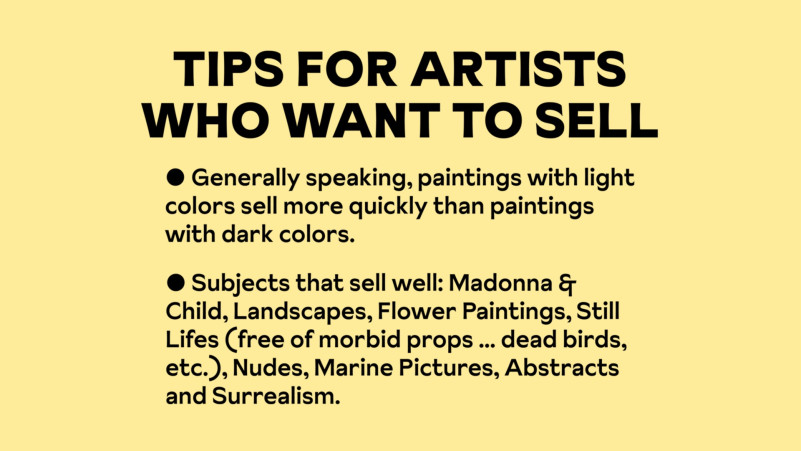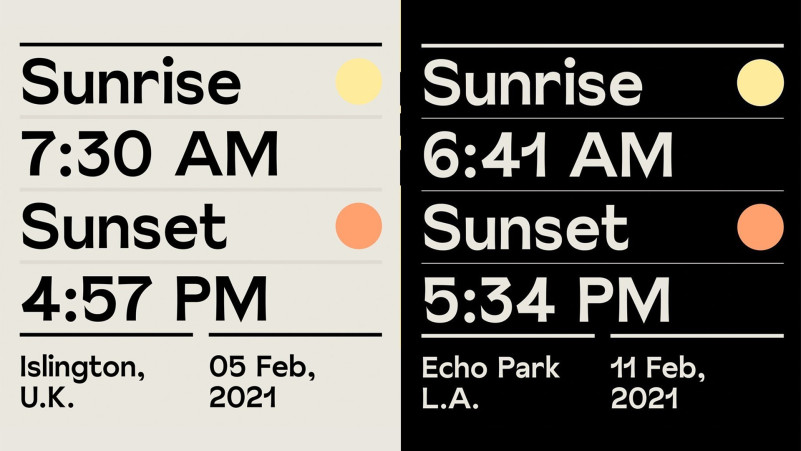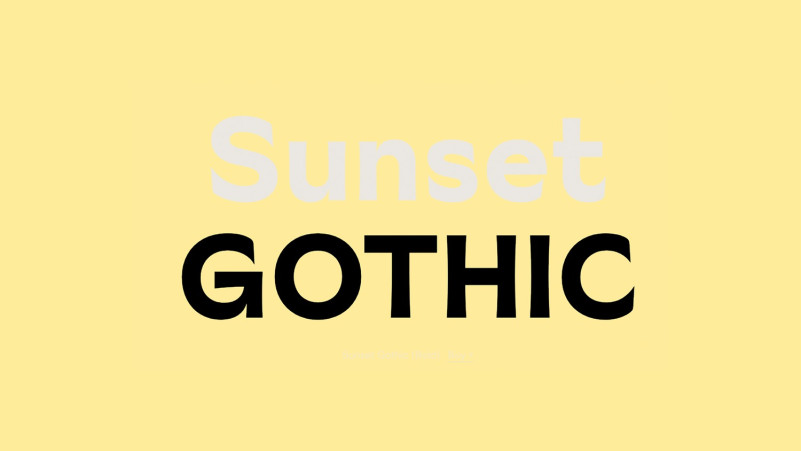
Sunset Gothic Font
Sunset Gothic Sans Serif Font, is a painterly sans-serif rendered in the tradition of Los Angeles sign-painters. It is an homage in part to John Baldessari (1931 – 2020) and his mostly-anonymous letterers (among them Norm Laich); to Ralph “Doc” Guthrie and the LATTC’s Sign Graphics programme (the last accredited degree of its kind in the US); and to the brush-rendered, vernacular approximations of vector-based letterforms which can be found up and down Sunset Boulevard, upon which Colophon Foundry’s L.A. outpost is located.
Stretching from Figueroa Street and the Arroyo Seco Parkway near downtown Los Angeles and culminating at Highway 1 in the Pacific Palisades, the boulevard terminates in the West at the Pacific Ocean after meandering through Echo Park, Silver Lake, Los Feliz, Hollywood, Beverly Hills, Bel-Air, and Brentwood. Across neighborhoods, the busy thoroughfare is lined and dotted with commercial endeavors new and old, many of whose proprietors announce their goods and services to automobile-bound passers-by with typography painted directly onto building facades and shopfront windows.
Typical of this mode of communication is the primary requirement to attract attention and the secondary need to maintain legibility for viewers inside of moving vehicles; indeed, these letterform paintings are for car-drivers and -passengers first, and pedestrians thereafter. This implicit condition leads organically to typography that contains compelling forms amidst hyperbolized, often over-scaled features. Emulating this meeting point of gesture and legibility, Sunset is a dexterous, workhorse sans-serif masquerading as a sign-painter’s display type.
Developed via observation and amalgamation since the designer’s arrival in Los Angeles in early 2016, Sunset Gothic is a subjective mélange of a multitude of unattributed sans-serif painting styles. Drawn in seven weights — ranging from the wispily elegant Hairline to the wryly assertive Heavy — Sunset is typified by a modulated / flared vertical stroke that can be found across sign-painting outputs and in typeface precedents like Hermann Zapf’s Optima and Aldo Novarese’s Forma. Additional identifying features include curvature terminals that mimic brush-lift, and a handy stylistic set that provides angled sign-painters’ terminals to the type’s horizontal strokes.